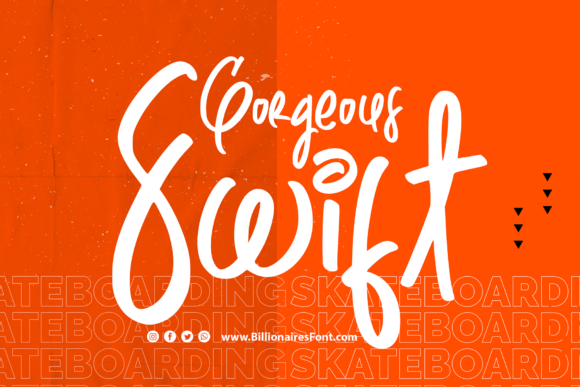
Unleash the captivating allure of Swift Gorgeous, a mesmerizing script font designed to leave a lasting impression. Bold and brushed, it dances across your designs, adding a touch of sophistication and elegance to every letter. Embrace the beauty of individuality, whether you're crafting a striking logo, creating eye-catching product packaging, or designing an invitation that speaks to the heart.
With Swift Gorgeous as your creative companion, transform your projects into masterpieces. Its timeless appeal transcends trends, ensuring that your designs remain captivating for years to come. Let your imagination soar as you explore the limitless possibilities of this stunning font.
Swift Gorgeous is the ultimate choice for those who seek to make a statement, to leave an indelible mark on the world through their designs. Its versatility knows no bounds, allowing you to effortlessly create branding that resonates with your audience, product packaging that captivates at first glance, and invitations that hint at the magic of the occasion.
More than just a font, Swift Gorgeous is an experience, a journey into the realm of visual expression. It's the perfect font for those who dare to be bold, to break free from the ordinary, and to create designs that ignite emotions and leave a lasting impression. Embark on this creative adventure and let Swift Gorgeous guide you towards design excellence.